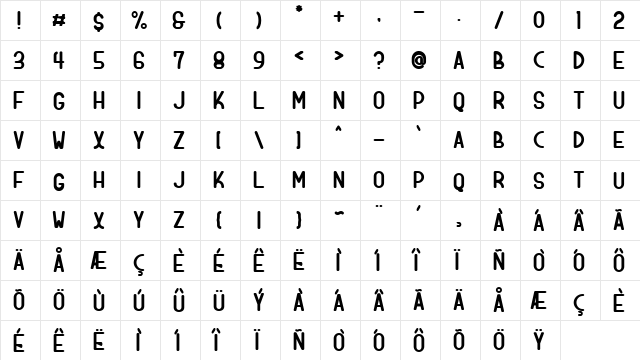
DOLOGAN bold Regular
| Designer | inun kmbr |
DOLOGAN bold offers clean, dependable letterforms without strong stylistic allegiance, making it a practical choice for designers who need flexibility. Its bold stroke weight gives it real presence on the page.